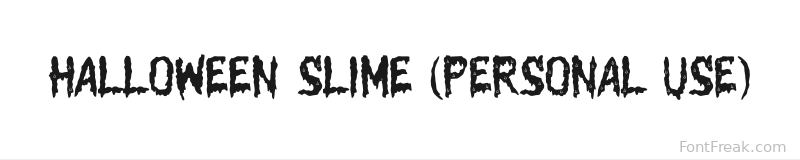
Halloween Slime (PERSONAL USE)
About Halloween Slime (PERSONAL USE)
Halloween Slime (PERSONAL USE) by MaknaStudio is a captivating decorative font that perfectly embodies the spooky spirit of Halloween. With its playful yet eerie vibe, this font is designed to evoke a sense of fun while maintaining a distinctively creepy aesthetic. The font exhibits a unique, jagged style, characterized by varying stroke weights and a dripping effect that mimics slime, which adds an engaging visual element. The spacing is thoughtfully crafted to ensure legibility while allowing the decorative characteristics to shine.
This font is ideal for a variety of creative applications. It works exceptionally well for Halloween-themed party invitations, where its playful design can set the mood for a fun gathering. Additionally, it’s perfect for creating eye-catching movie posters for horror films, allowing designers to capture the essence of suspense and fright. Small business owners can utilize the Halloween Slime font for promotional materials during the spooky season, enhancing their branding efforts with a unique touch. Content creators looking to add flair to their seasonal social media posts will find this font an excellent choice, making their content stand out in a sea of ordinary designs.
Targeted toward graphic designers, small business owners, and content creators, the Halloween Slime (PERSONAL USE) font free download offers a fresh and dynamic option for those looking to spice up their projects. Its distinctive style not only captures attention but also adds a layer of creativity that resonates with the Halloween theme. This font stands out due to its combination of playful design and thematic relevance, making it a must-have for anyone looking to inject some fun and fright into their seasonal designs.